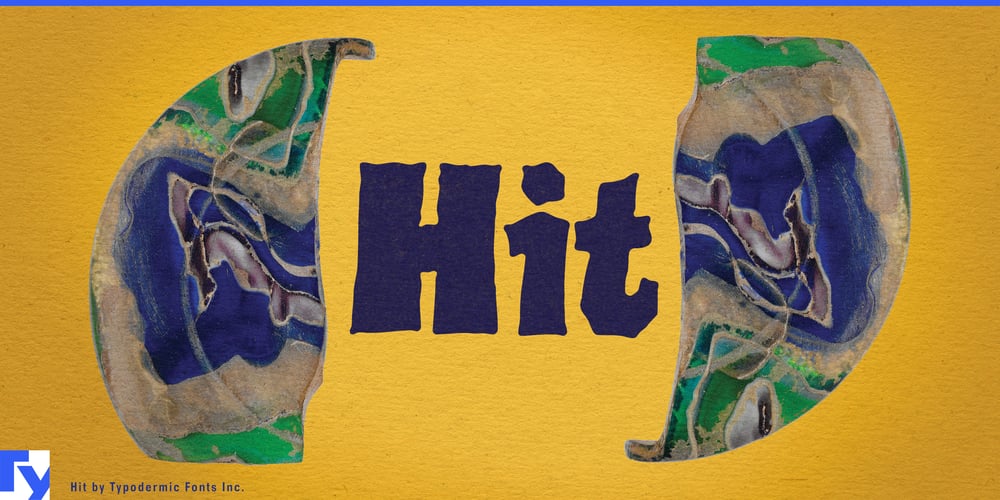
Hit Font Family was designed by Ray Larabie and published by Typodermic. Hit contains 1 styles and family package options. Listen up, typography renegades! Hit has just crashed onto the design scene, and it’s not here to play nice with your run-of-the-mill fonts. It’s a bare-knuckle brawler with a heart of gold and a face that’s seen its fair share of bar fights.Hit doesn’t just sit on the page; it sprawls across it like a vagabond storyteller, each letter a yarn spun from the threads of hard-lived experience. Its textured edges aren’t imperfections—they’re battle scars, each one telling a tale of typographic adventures in the wild frontiers of design. But don’t let its rough-and-tumble exterior fool you. Hit’s got a mischievous twinkle in its serifs that’ll charm the socks off even the most buttoned-up corporate logo. It’s the typeface equivalent of that lovable rogue who can crack wise with the best of them, but still has your back in a pinch.Need to give your vintage-inspired poster some authentic grit? Hit’s got you covered, leaving your words looking like they’ve been stamped by a whiskey-soaked letterpress. Want to inject some personality into your ultra-modern tech startup’s branding? Hit struts in like a cowboy at a cocktail party, tipping its hat to tradition while giving convention the boot. And just when you think you’ve got Hit figured out, it surprises you with its linguistic dexterity. This typeface is a globe-trotting polyglot, as comfortable setting Vietnamese street signs as it is crafting Welsh poetry. From the cobblestone alleys of Prague to the sun-baked plazas of Madrid, Hit speaks the local lingo with the ease of a well-traveled raconteur.Choosing Hit for your project isn’t just a design decision—it’s a statement of intent. It’s for the bold, the unapologetic, the designers who look at perfection and say, “Nah, too boring.” So, whether you’re crafting a label for small-batch moonshine, designing a poster for an underground punk revival, or just want to give your corporate newsletter a swift kick in the pants, Hit is ready to roll up its sleeves and get to work.